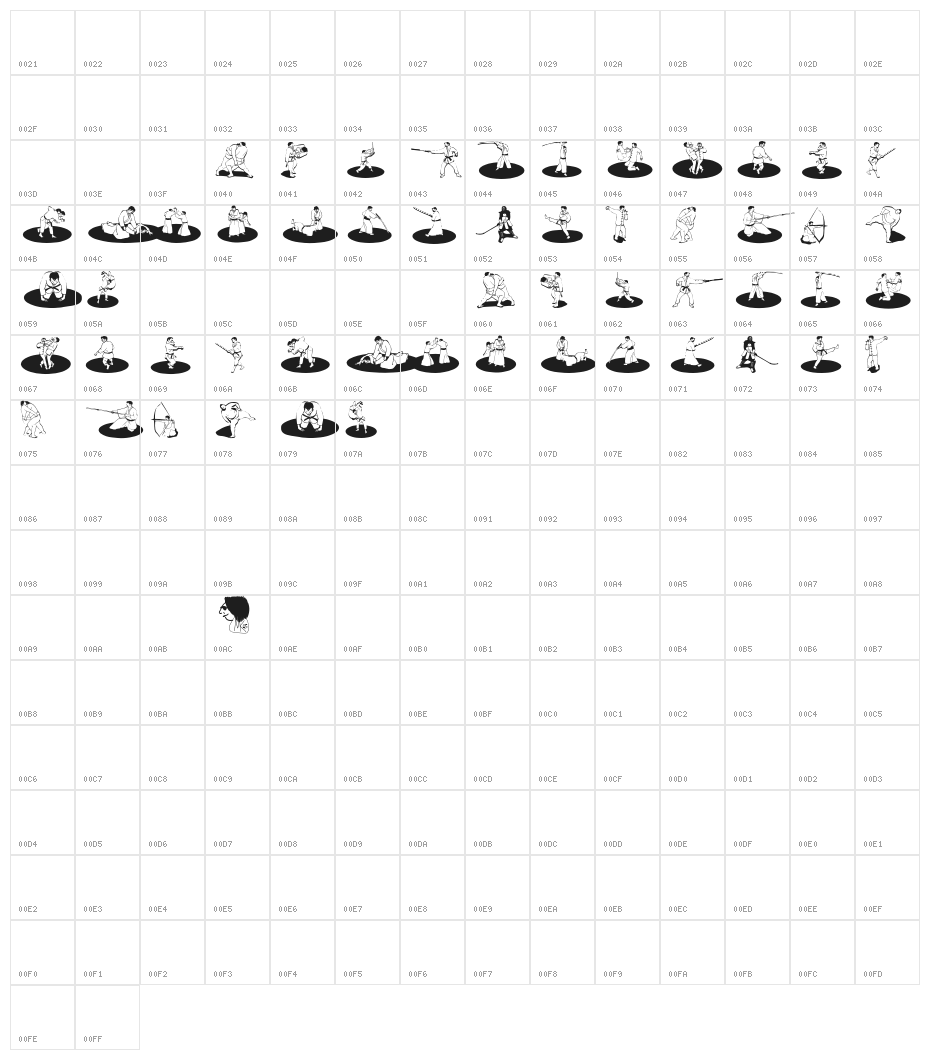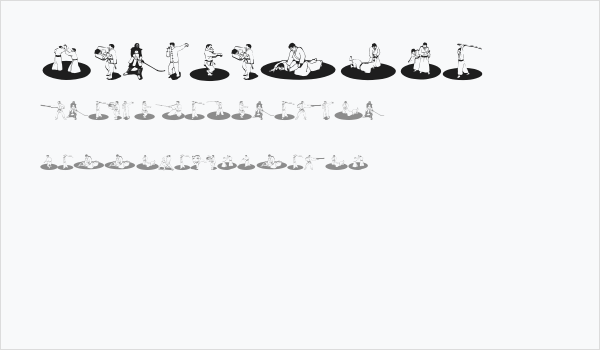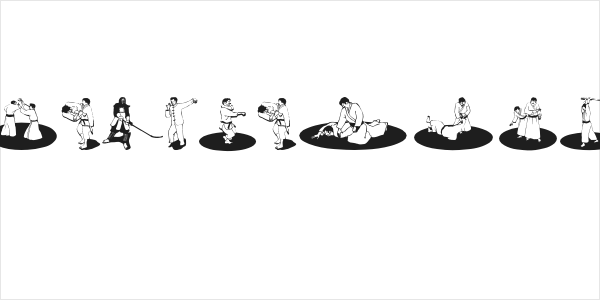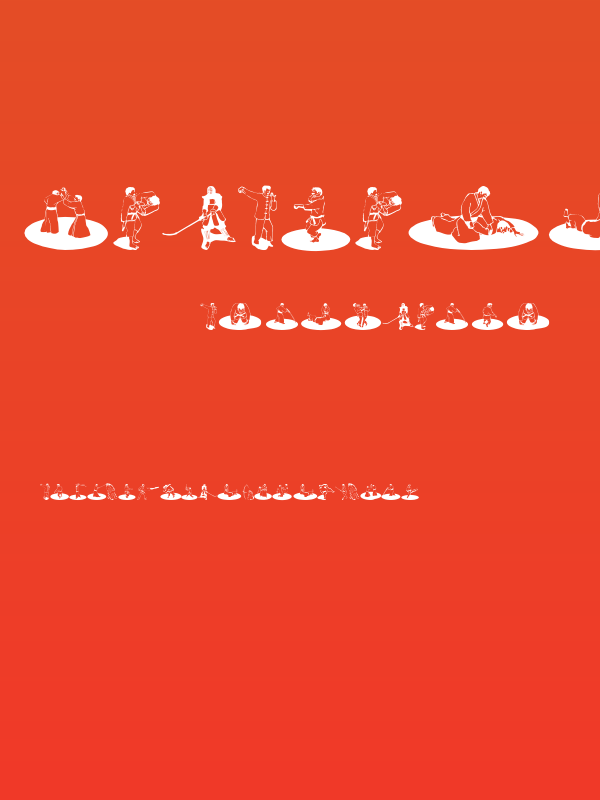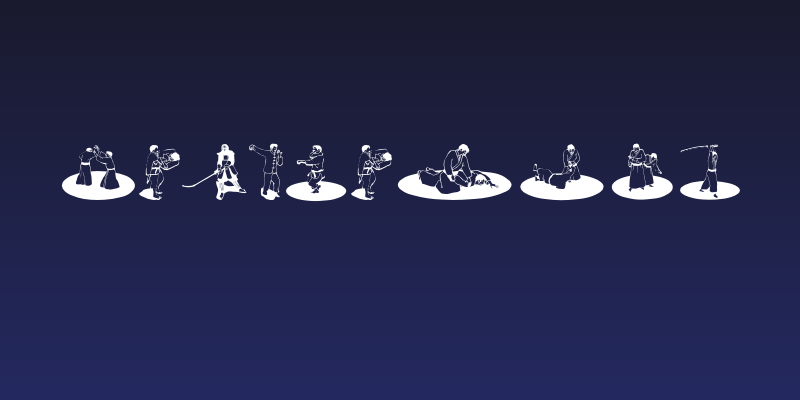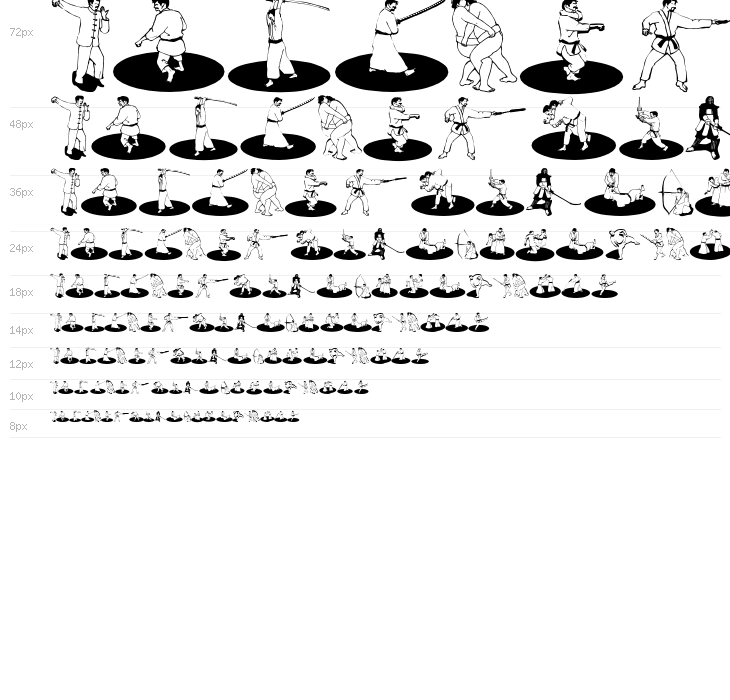
MartialOne Font
A decorative display font composed of illustrated martial arts figures in various poses, each character represented by a unique action scene, with high contrast between the black ground shadows and the white figures, and no traditional letterforms.
| Overall Style | Decorative, Thematic, Artistic |
| Use Case | Logos, Headlines, Posters, Themed graphics |
| Proposed Projects | Posters, event flyers, themed branding, martial arts school materials, creative titles. |